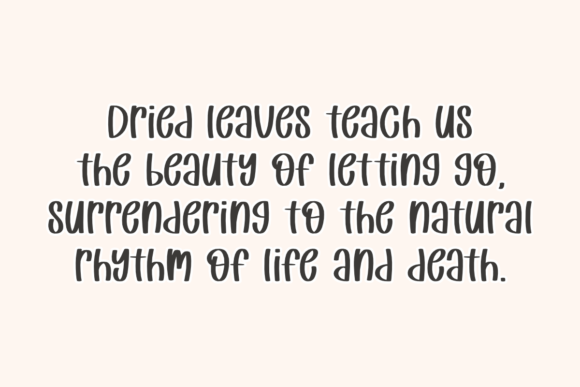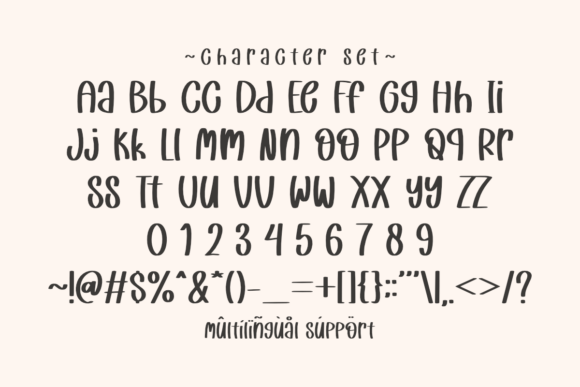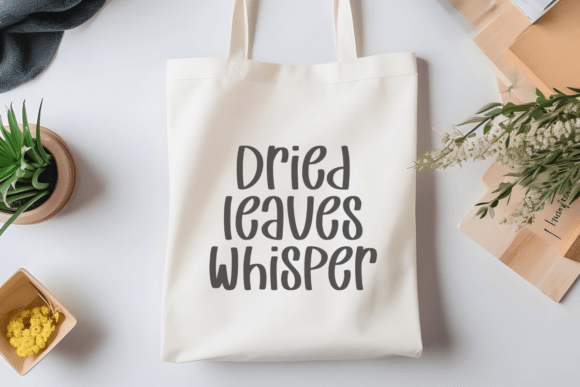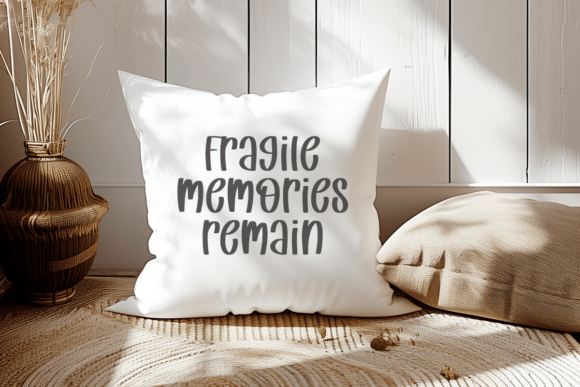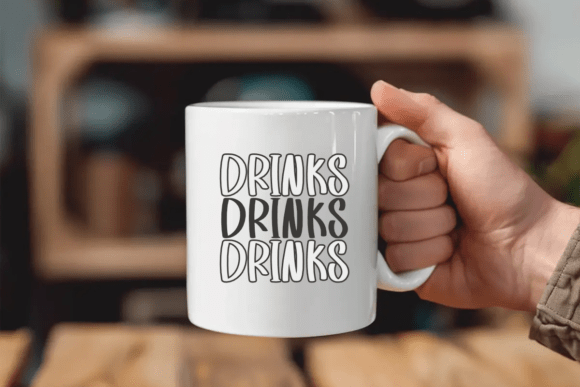
Dried Leaves Font: A Charming Handwritten Font for Autumn-Inspired Designs
Are you looking for a font that captures the cozy, whimsical essence of autumn? Look no further than the Dried Leaves Font, a charming handwritten font that is perfect for seasonal branding, nature-themed crafts, and friendly packaging. With its tall, slightly whimsical characters and soft outlined effect, this font balances elegance and playfulness in one delightful design.
What Makes Dried Leaves Font So Special?
The Dried Leaves Font is a unique and eye-catching font that is sure to make your designs stand out. Its tall, slender characters give it a elegant feel, while the soft outlined effect adds a touch of whimsy and playfulness. The font’s autumn-inspired vibe makes it perfect for seasonal designs, such as Thanksgiving cards, Halloween invitations, and fall-themed branding.
Perfect for Seasonal Branding
The Dried Leaves Font is ideal for seasonal branding, particularly for autumn-themed designs. Its cozy, inviting feel makes it perfect for creating warm and welcoming brand identities that evoke the feeling of crisp fall leaves and cozy sweaters. Whether you’re designing a logo, packaging, or marketing materials, this font is sure to add a touch of autumn charm to your brand.
Nature-Themed Crafts
Crafters and DIY enthusiasts will love the Dried Leaves Font for its natural, earthy feel. The font’s soft outlined effect and whimsical characters make it perfect for creating nature-themed crafts, such as leaf rubbings, pinecone decorations, and other autumn-inspired projects. Use it to add a personal touch to your crafts and make them stand out.
Friendy Packaging
The Dried Leaves Font is also perfect for friendly packaging, such as gift tags, labels, and cards. Its playful, whimsical feel makes it ideal for adding a personal touch to your packages and gifts. Whether you’re sending a gift to a friend or family member, or simply want to add a special touch to your everyday packaging, this font is sure to delight.
Key Features of Dried Leaves Font
- Charming handwritten font with tall, slightly whimsical characters
- Soft outlined effect adds a touch of elegance and playfulness
- Autumn-inspired vibe makes it perfect for seasonal branding and designs
- Ideal for nature-themed crafts, friendly packaging, and DIY projects
- Balances elegance and playfulness in one delightful design
Tips for Using Dried Leaves Font
Here are a few tips for using the Dried Leaves Font in your designs:
- Use it for headings and titles to add a touch of autumn charm to your designs
- Pair it with other fonts, such as serif or script fonts, to create a unique and eye-catching design
- Use it for packaging and labeling to add a personal touch to your products
The Dried Leaves Font is a charming and versatile font that is perfect for designers and crafters looking to add a touch of autumn charm to their designs. With its unique blend of elegance and playfulness, this font is sure to delight. Whether you’re designing seasonal branding, nature-themed crafts, or friendly packaging, the Dried Leaves Font is the perfect choice.